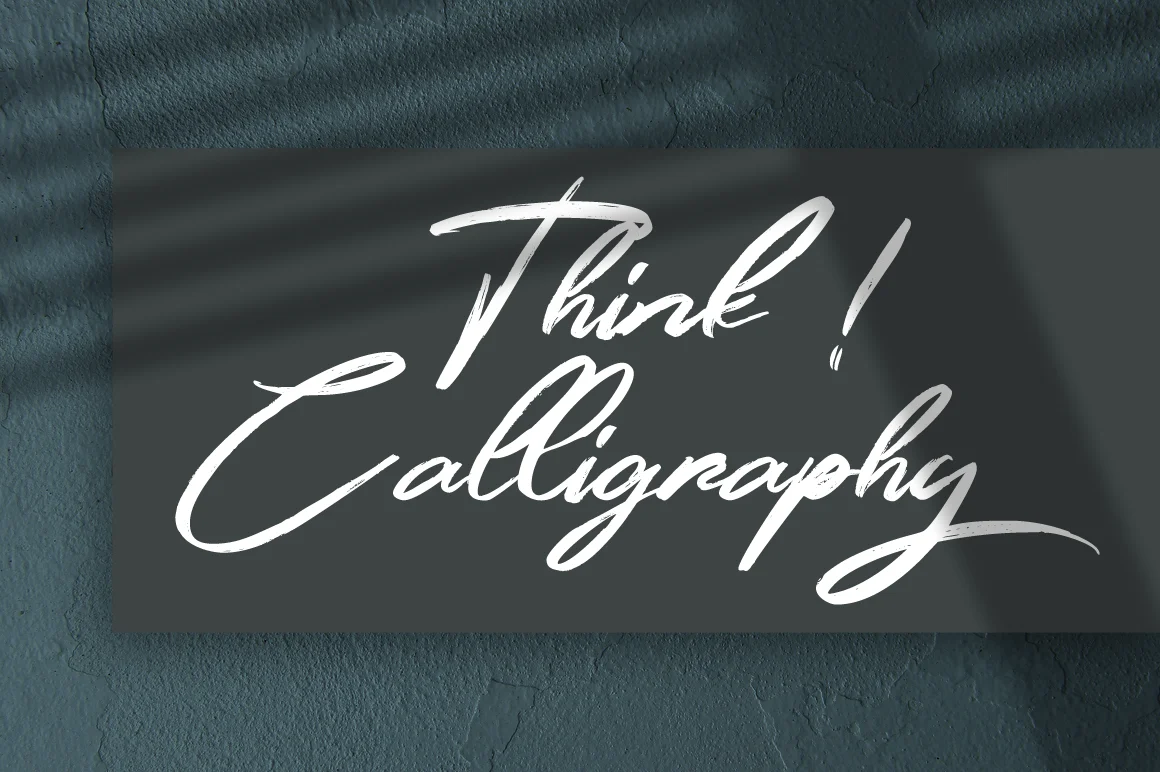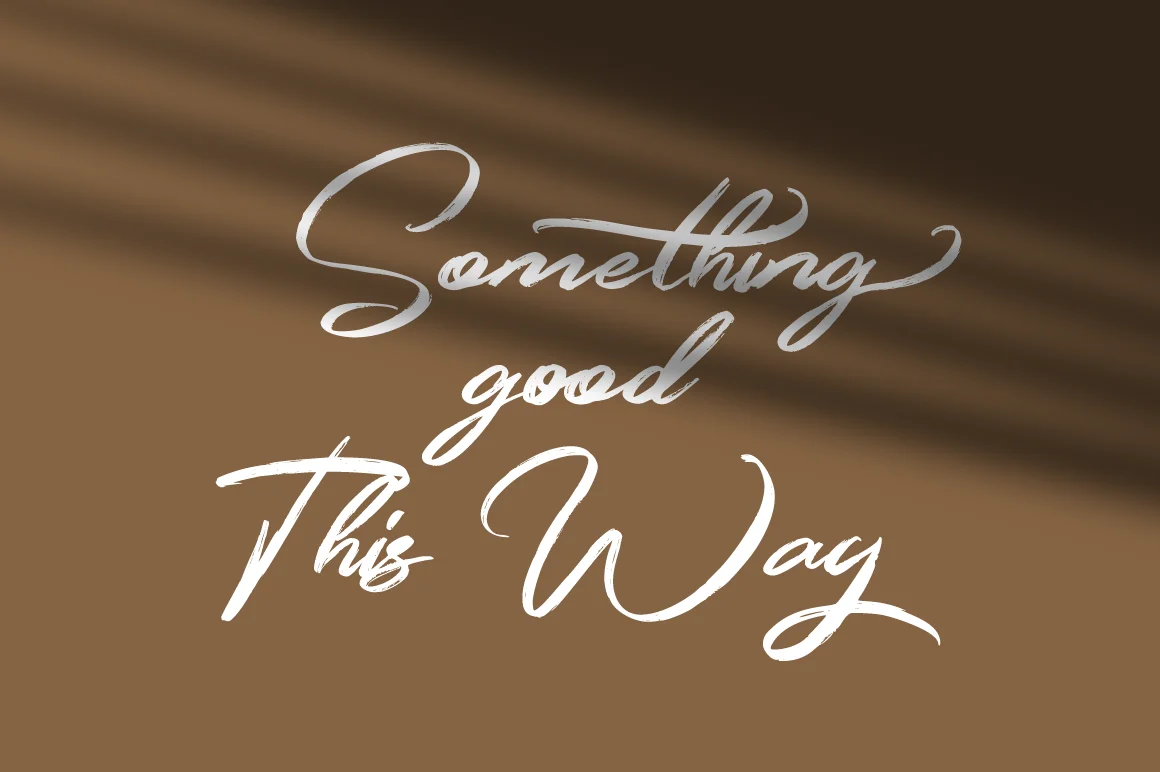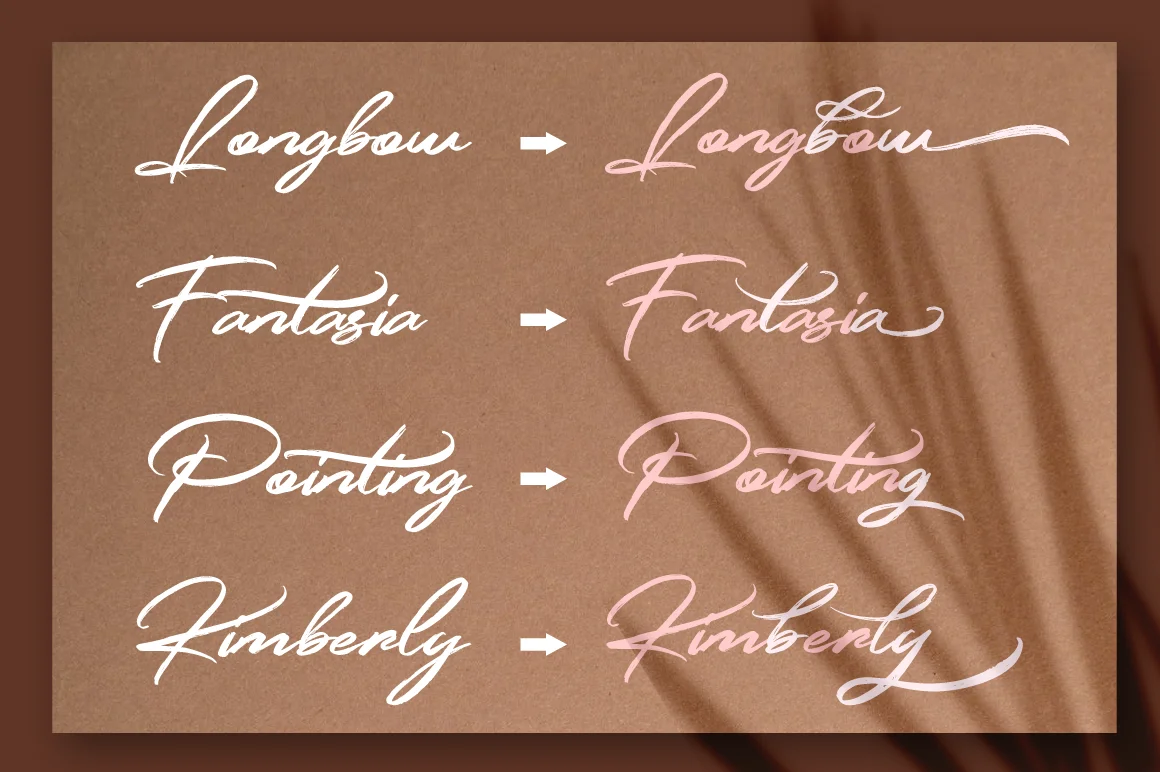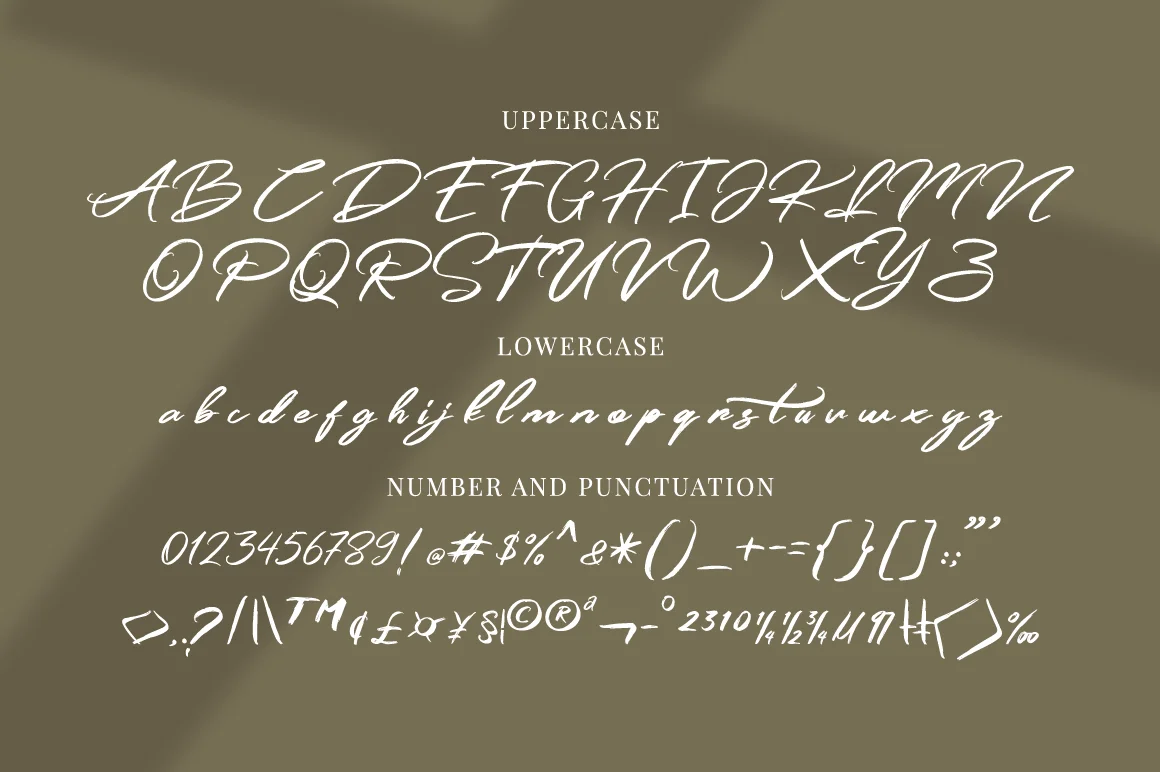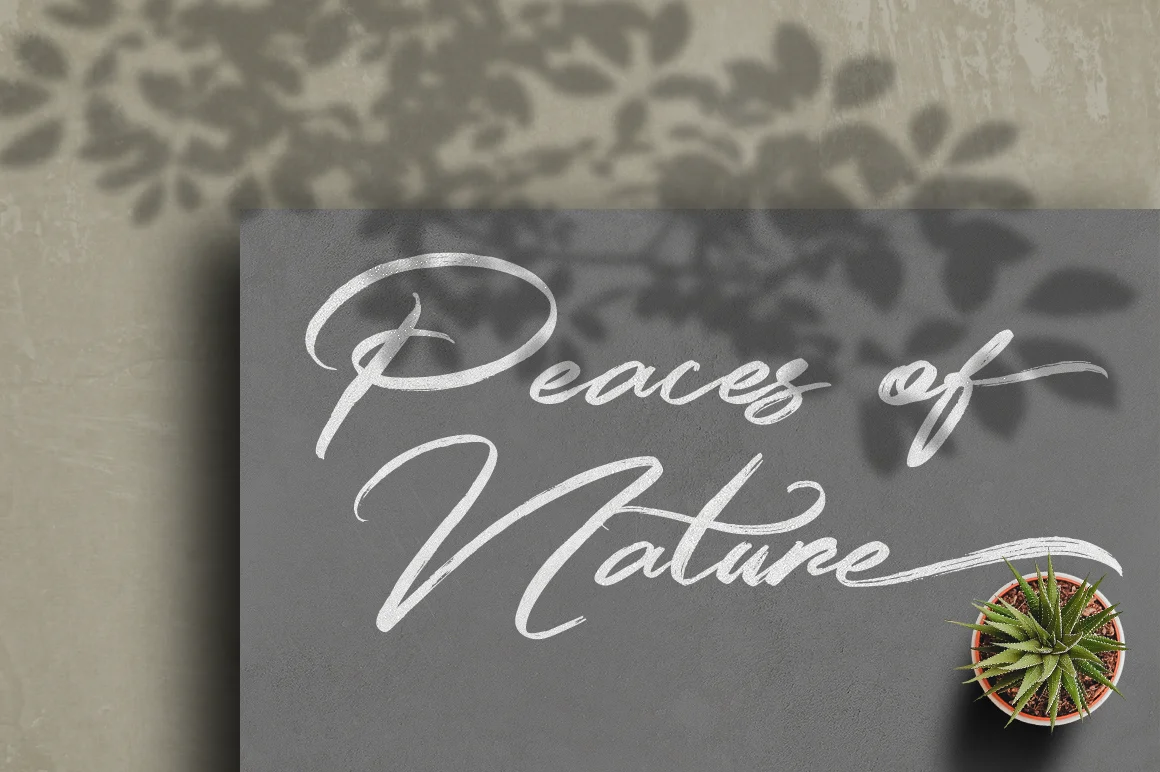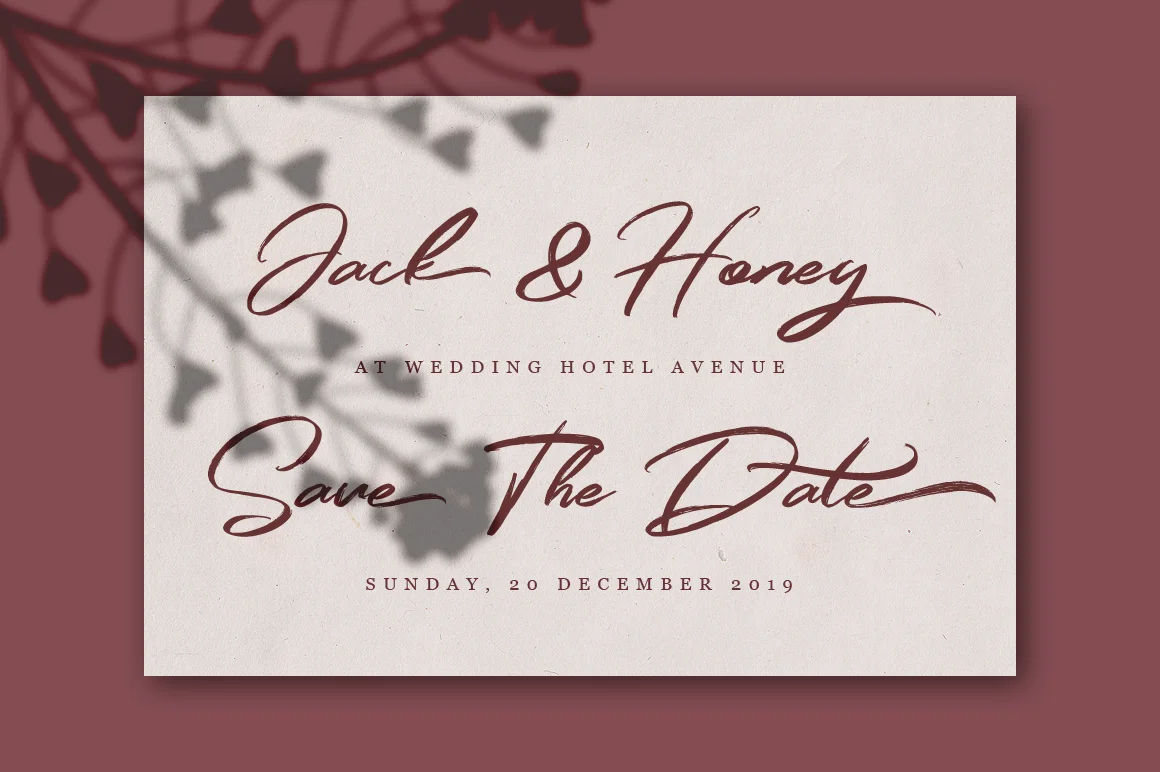
Simpletune - Handwritten Script Font
Simpletune Handwritten Script Font
This Simpletune Handwritten Script Font is perfect for acoustic music branding, singer-songwriter materials, indie music venues, handwritten song lyrics, musical journal designs, intimate concert promotions, folk music festivals, melody-inspired logos, personal music blogs, and authentic musical storytelling applications.
What makes this Simpletune Handwritten Script Font exciting is its melodic authenticity that captures the pure simplicity and heartfelt expression of handwritten musical creativity and acoustic storytelling. The font features flowing script letterforms with musical characteristics that convey artistic simplicity, melodic warmth, and authentic musical expression. Its handcrafted character and tune-inspired design make it ideal for brands seeking to communicate musical authenticity, acoustic simplicity, and heartfelt musical storytelling in music and creative markets.
The Simpletune Handwritten Script Font family includes regular and bold weights with musical alternates, acoustic variants, and melodic flourishes. This comprehensive musical script font family provides designers with authentic typographic tools to create harmonious compositions while maintaining the handwritten character essential for music brands and acoustic communications.
Independent musicians and acoustic venues consistently choose Simpletune Handwritten Script Font for projects requiring authentic musical appeal and acoustic credibility. This font's distinctive handcrafted character perfectly captures the musical simplicity and acoustic excellence that resonate with audiences who appreciate indie music, acoustic performance, and brands that embody authentic musical expression and melodic storytelling.
The melodic construction of Simpletune Handwritten Script Font showcases naturally flowing letterforms with musical proportions that ensure exceptional authenticity across all acoustic applications. Its handwritten appearance and musical character create memorable impressions while maintaining the readability necessary for effective musical communication and acoustic materials.
Professional designers appreciate how Simpletune Handwritten Script Font brings immediate musical authenticity and acoustic charm to brand communications. The font's handcrafted nature allows organizations to communicate musical simplicity and acoustic excellence while maintaining the professional quality necessary for effective positioning in independent music and acoustic performance markets.
The heartfelt appeal of Simpletune Handwritten Script Font makes it particularly effective for brands emphasizing acoustic music, musical authenticity, and heartfelt expression. Its melodic character resonates strongly with audiences who appreciate independent music, acoustic storytelling, and brands that represent the pure simplicity and authentic beauty of handcrafted musical expression.
Whether developing branding for indie music artists or creating materials for acoustic music venues, Simpletune Handwritten Script Font provides the authentic typographic foundation that musical brands need to communicate their acoustic excellence, melodic authenticity, and the heartfelt simplicity that defines independent music and authentic acoustic achievement.